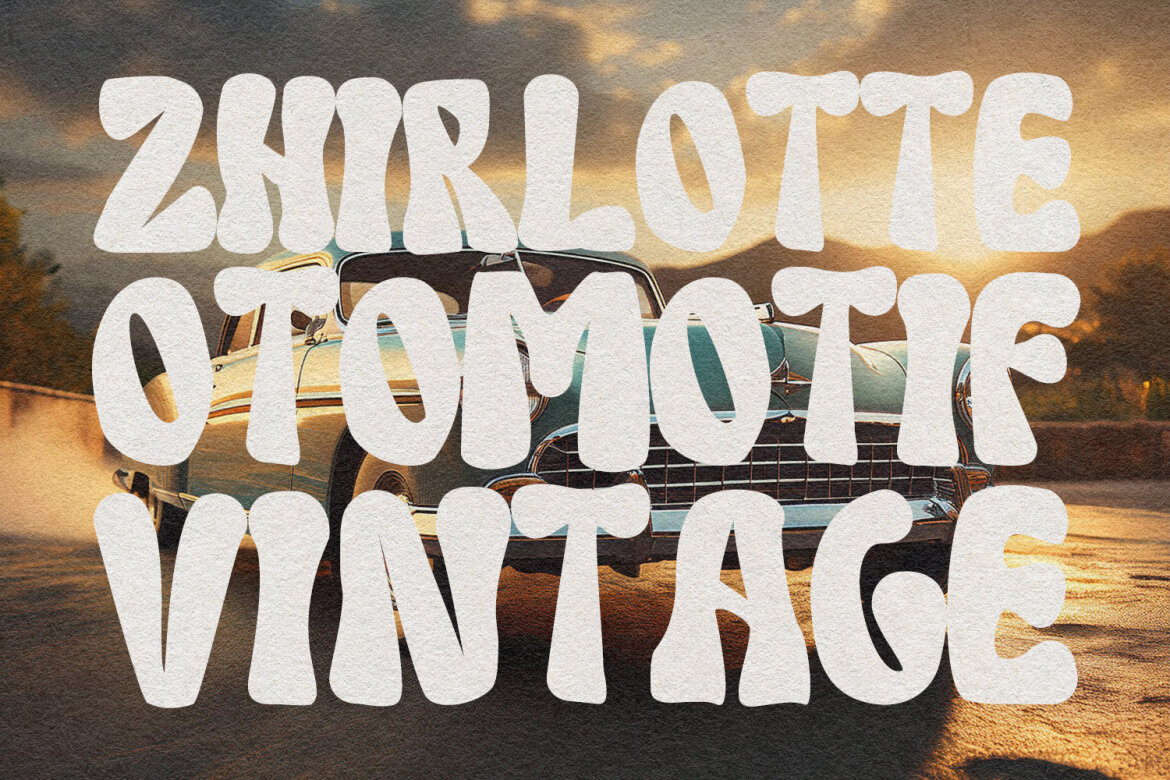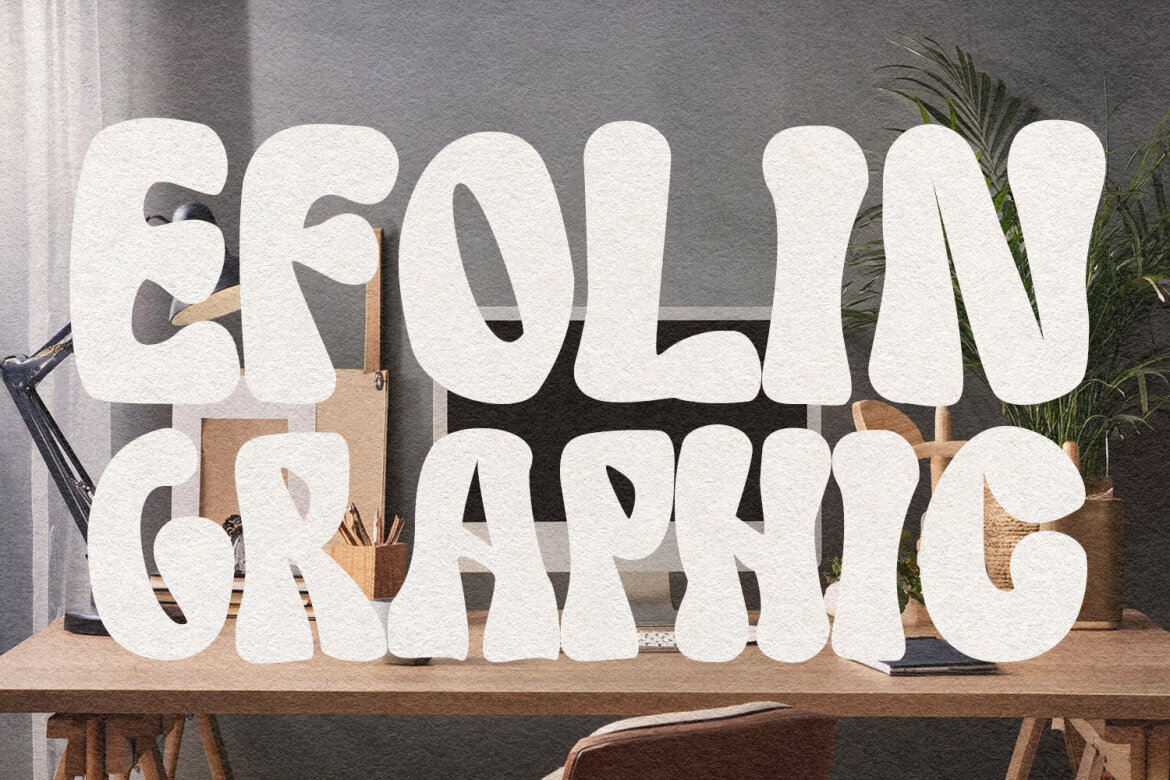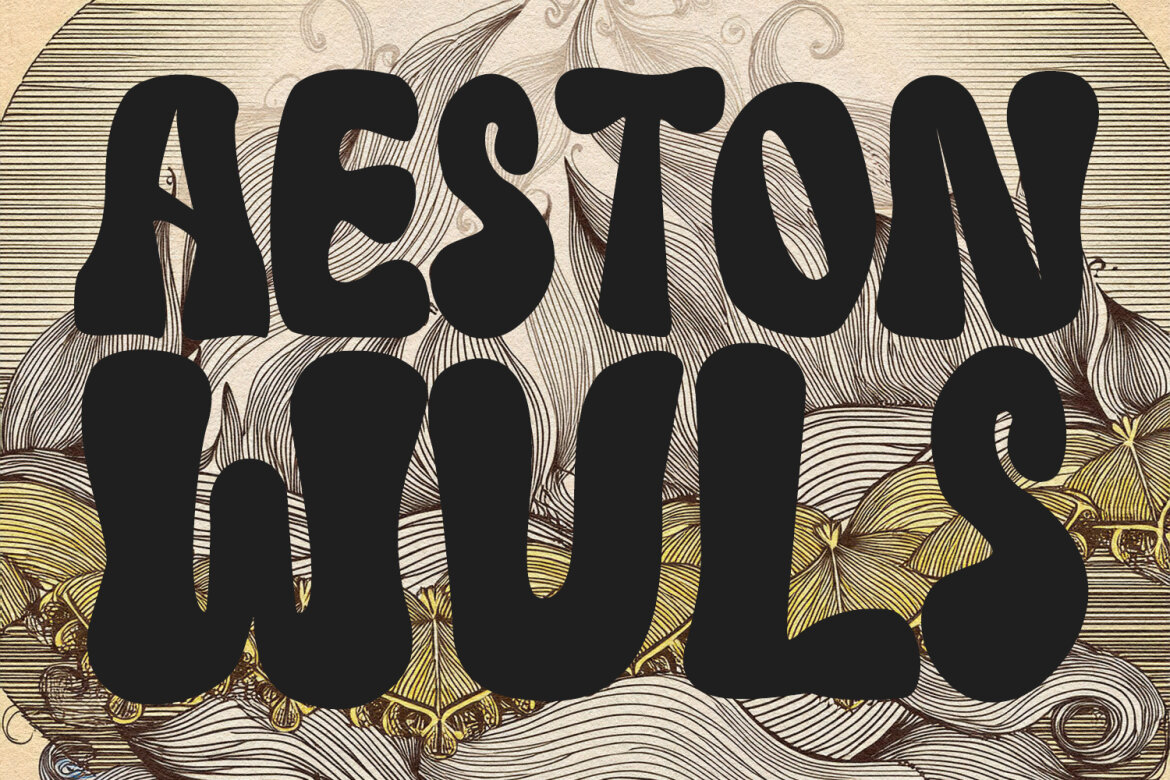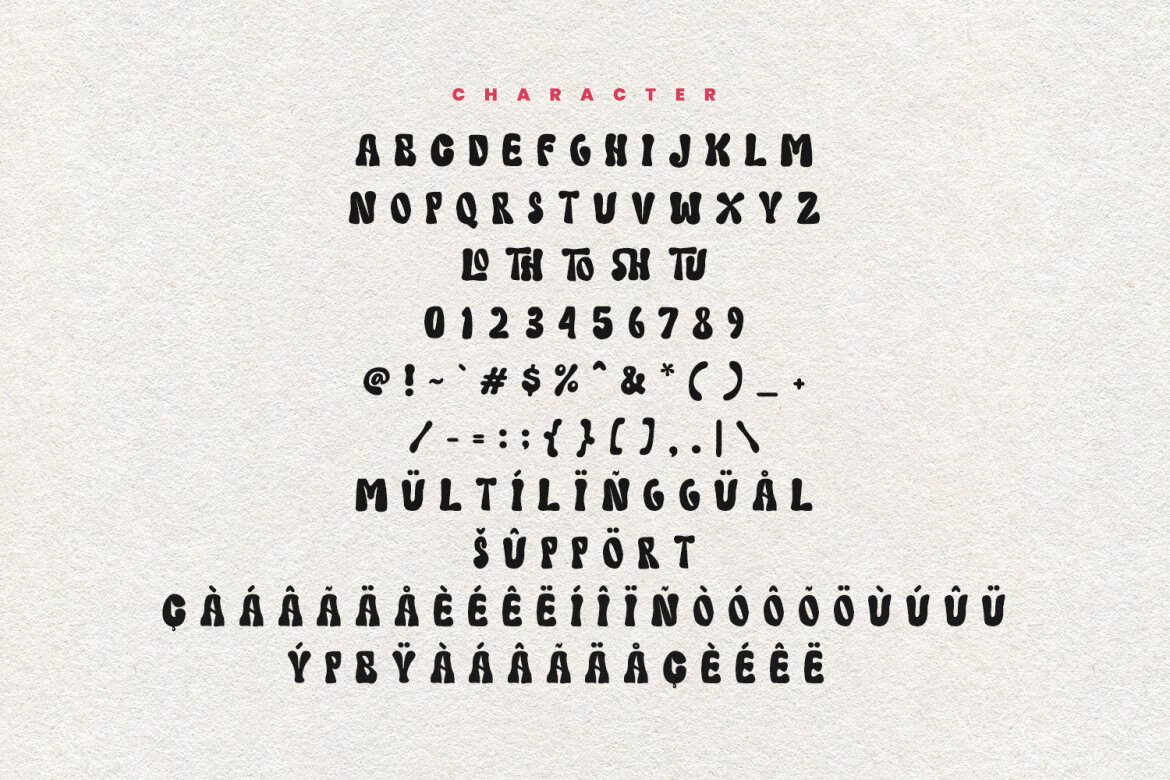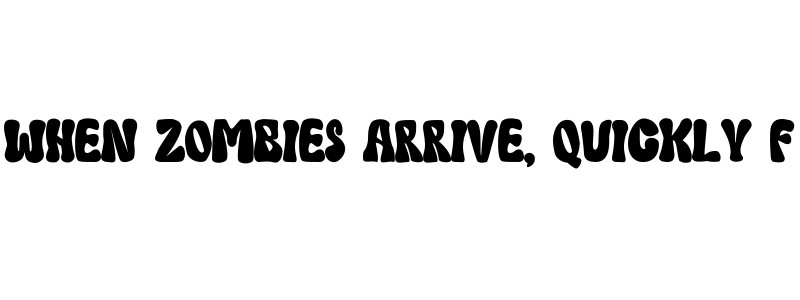
Shetu Shiper FREE Handwritten Font
Shetu Shiper
Give your designs an authentic brush handcrafted feel. "Shetu Shiper Handmade Handwritten Font" is perfectly suited to signature, stationery, logo, typography quotes, magazine or book cover, website header, flyer, clothing, branding, packaging design and more.